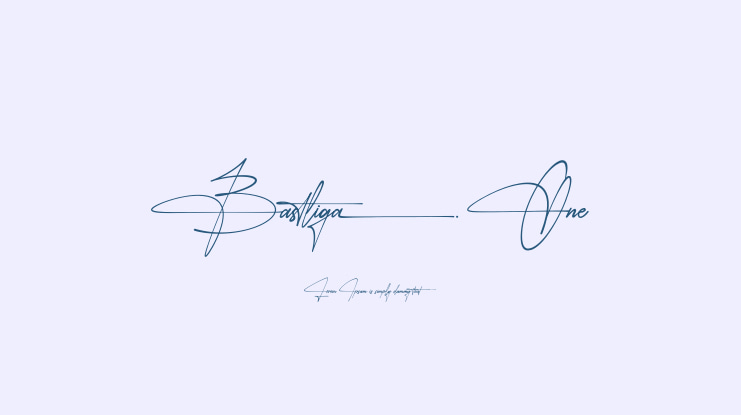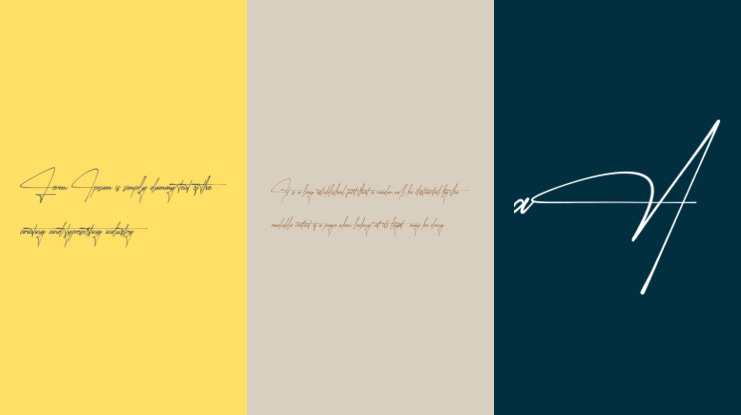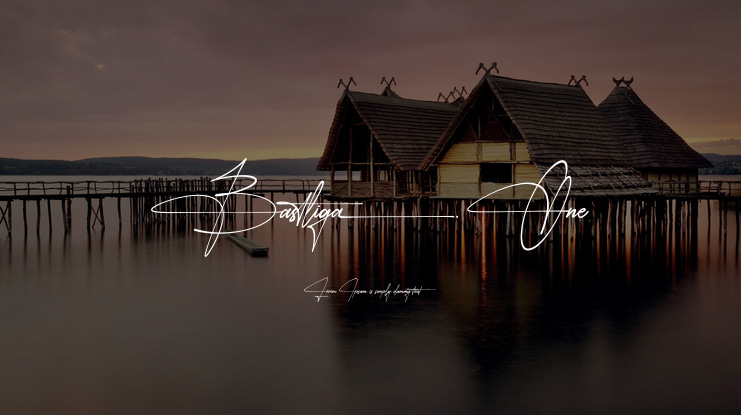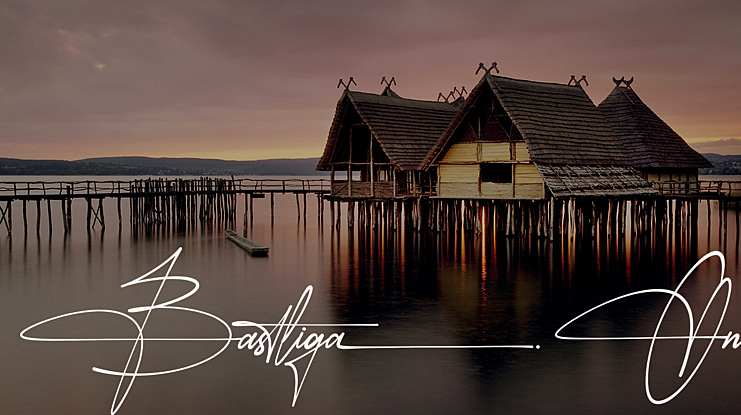
Bastliga One Font
This is a signature font that has its own uniqueness and characteristics from a signature font, because it is handwritten manually, so it has the impression of a true signature. This font is carefully crafted with a modern touch. This font looks elegant, luxurious, natural with a beautiful signature touch.
Bastliga would perfect for photography, watermark, social media posts, advertisements, logos & branding, invitation, product designs, label, stationery, wedding designs, product packaging, special events or anything that need signature taste.